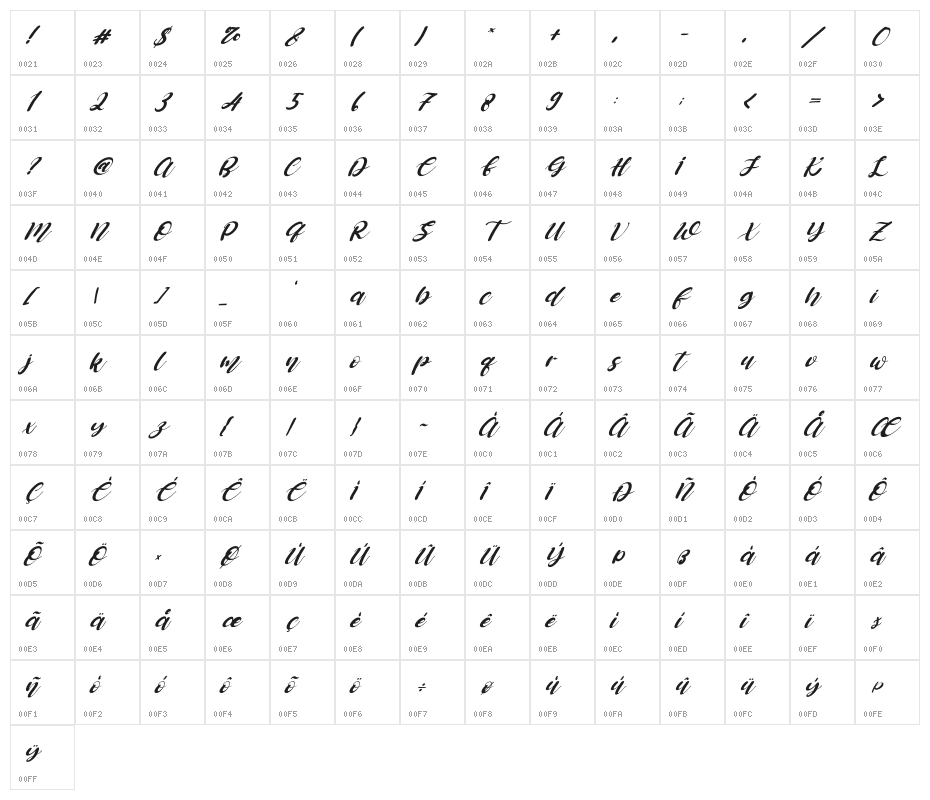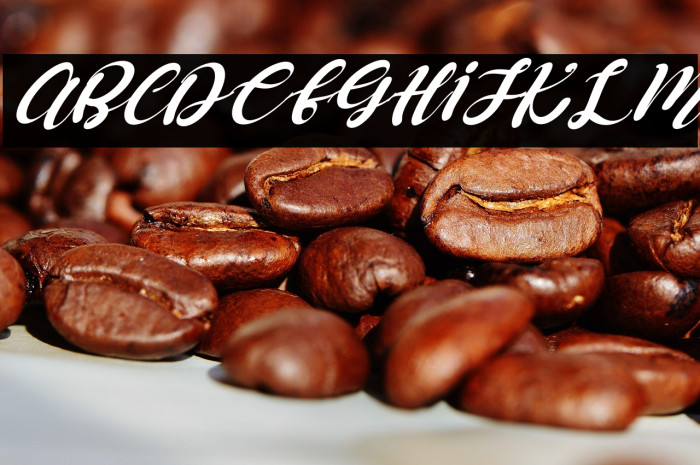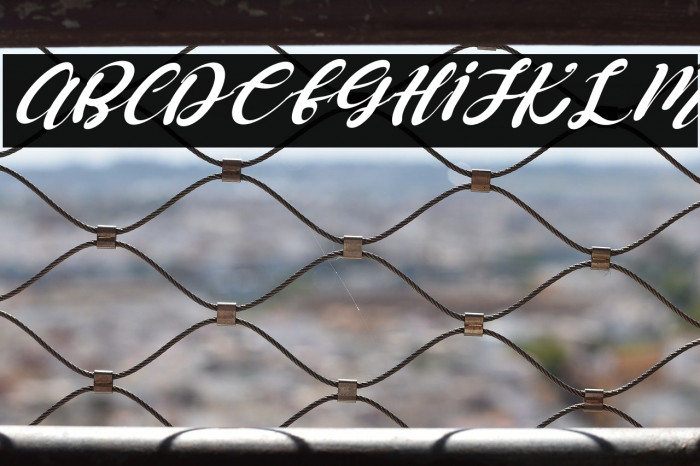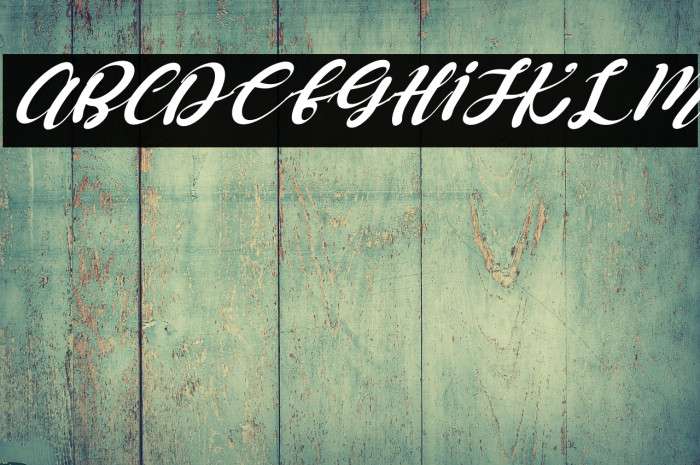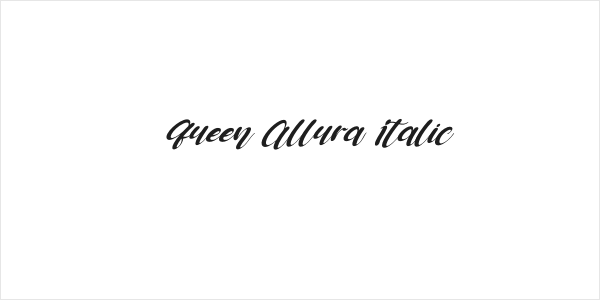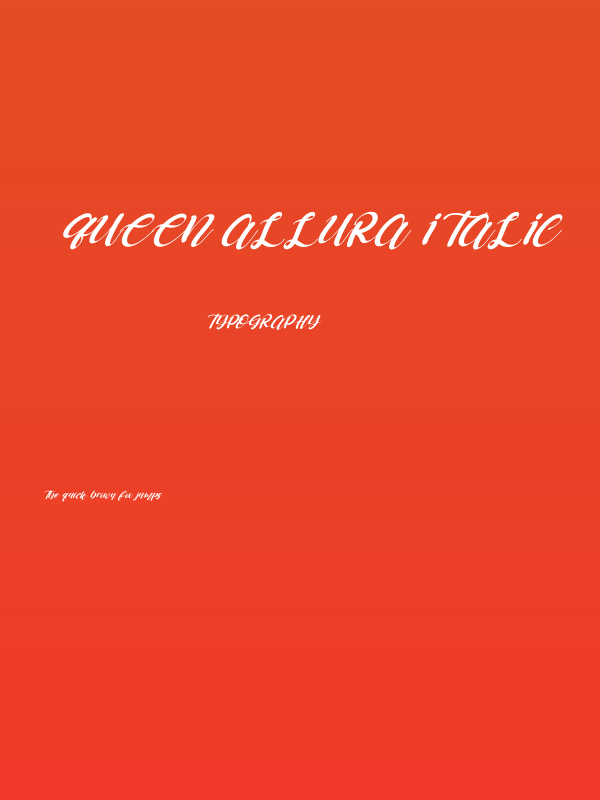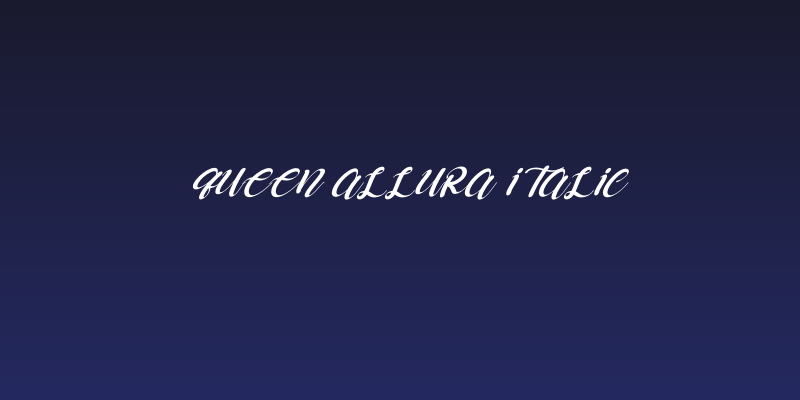
Queen Allura Italic Font
Queen Allura Italic Description
This font exudes elegance and fluidity, characterized by its cursive, handwritten style. The letters are connected in a flowing manner, giving it a sophisticated and artistic appearance. The strokes are smooth and exhibit a consistent slant, enhancing its italic nature. The uppercase letters are bold and prominent, while the lowercase letters maintain a graceful continuity. The numerals and special characters are designed to complement the overall aesthetic, maintaining the same fluid and elegant style. This font is ideal for projects that require a touch of elegance and personal flair.
| Overall Style | Elegant, Artistic |
| Use Case | Logos, Invitations, Personal stationery |
| Proposed Projects | Ideal for wedding invitations, greeting cards, elegant branding, and personal stationery. |